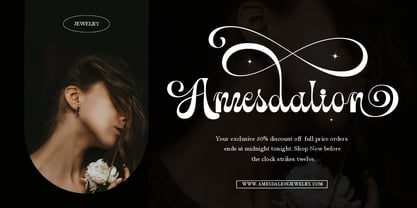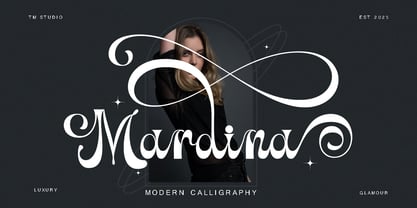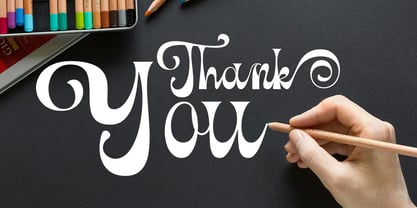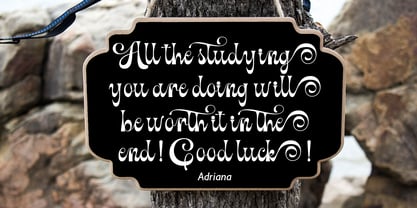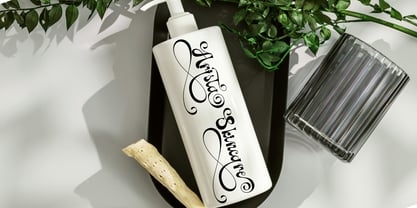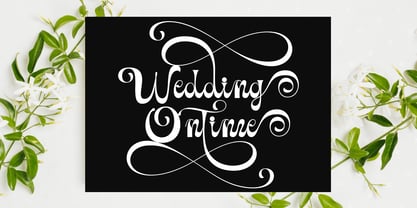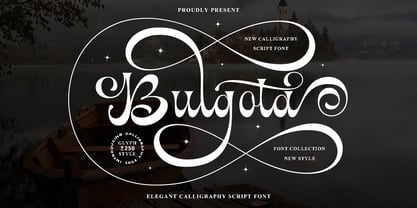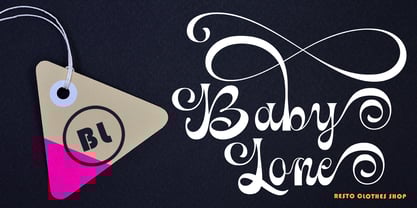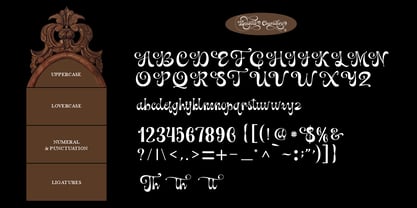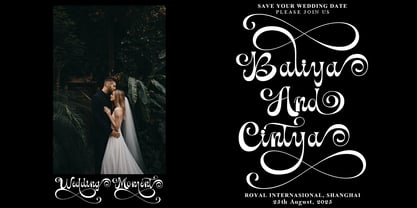
Bulgota
by TM Type
The Bulgota Font Family was designed by Teuku Bustami and published by TM Type. Bulgota contains 1 styles.
Bulgota – Classic Elegant Copperplate Calligraphy Script Font – Beauty Classic Luxury Royal Font
Bulgota comes with glyph variations such as Ligature, Alternate, and Swash. You can combine it to make a perfect typography design. It is perfect for your upcoming projects such as luxury logo and branding, classy editorial design, woman’s magazines, cosmetic brands, fashion promotional, art gallery branding, museum, boutique branding, stationery design, blog design, modern advertising design, card invitation, art quote, home decor, book/cover title, special events and any more.